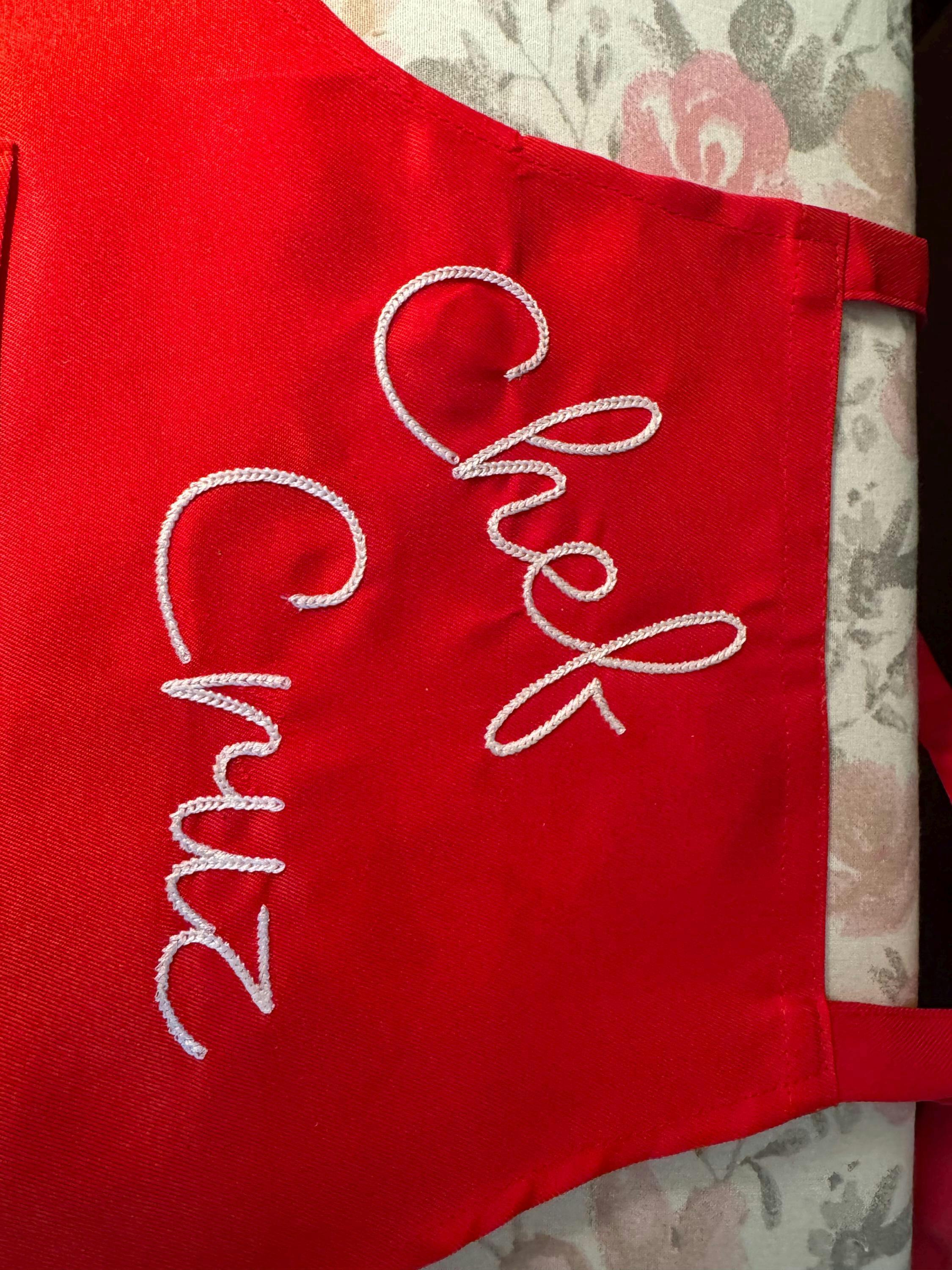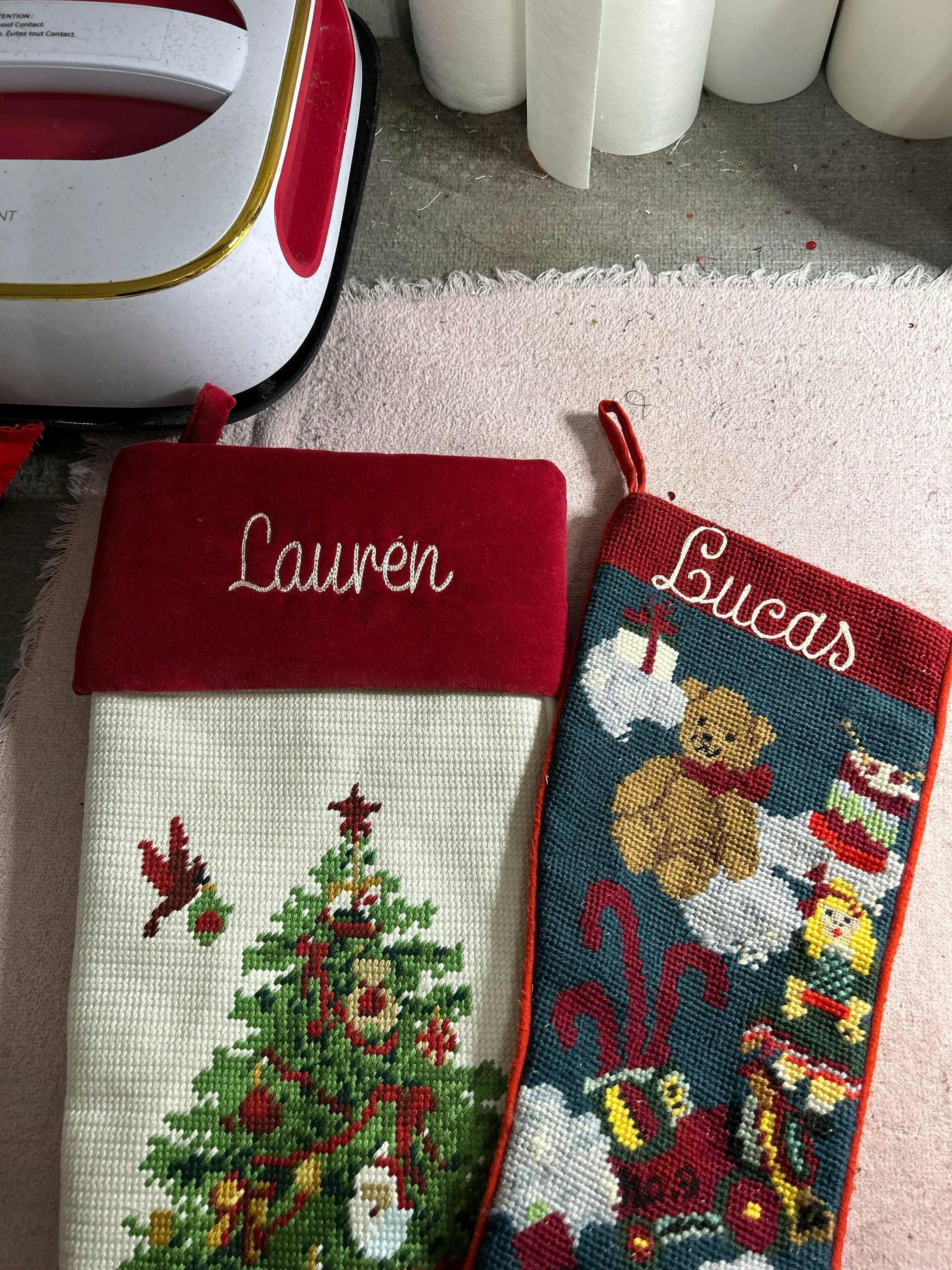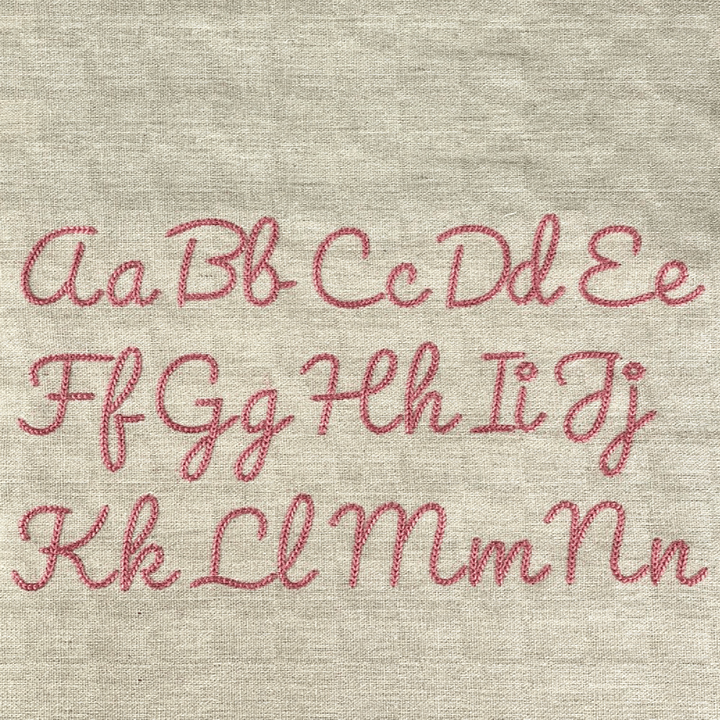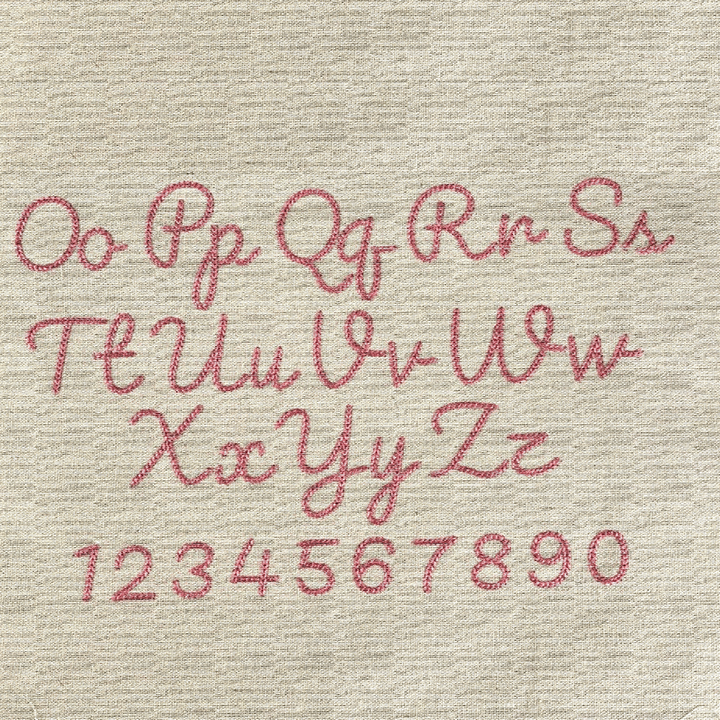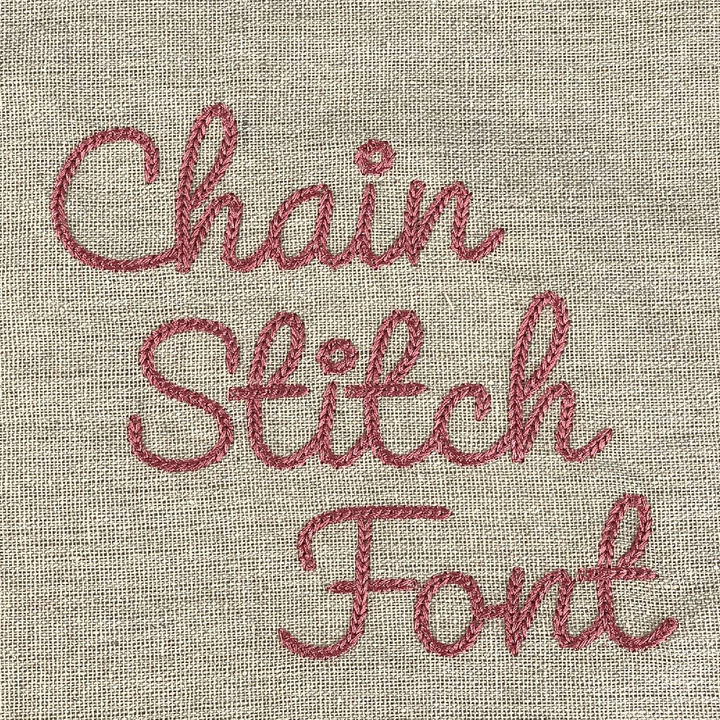
Photograph of Chain Stitch embroidery font
Photograph of stitched out Chain Stitch embroidery font
Photograph of Chain Stitch embroidery font alphabet
Chain Stitch Embroidery Font
With its graceful curves, intricate loops, and intricate detailing, the Chain Stitch Font adds a touch of elegance and finesse to your designs. Each stitch is meticulously crafted to replicate the authentic look of hand embroidery, giving your creations a professional and artistic edge that is sure to impress.
Whether you're embellishing garments, personalizing accessories, or adding a custom touch to home decor, the Chain Stitch Font delivers impeccable results every time. Its seamless integration with embroidery machines ensures a smooth and effortless stitching experience, allowing you to bring your vision to life with ease and precision.